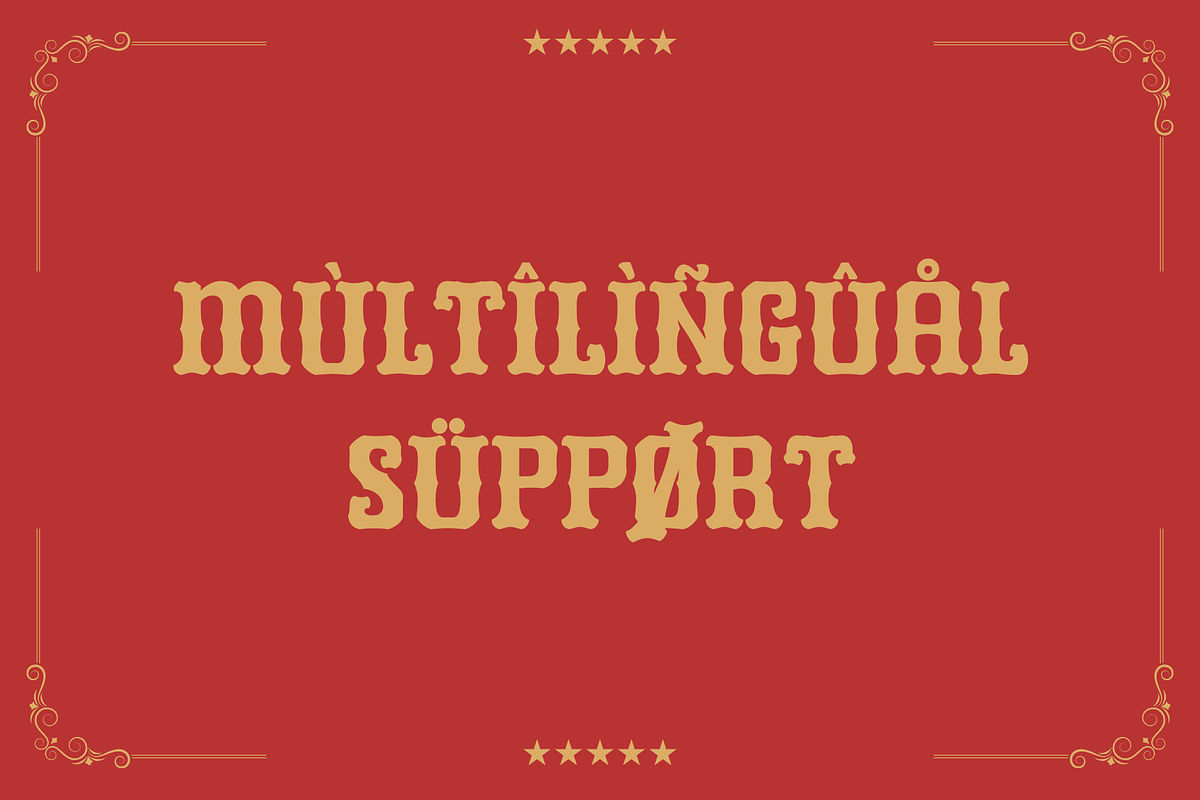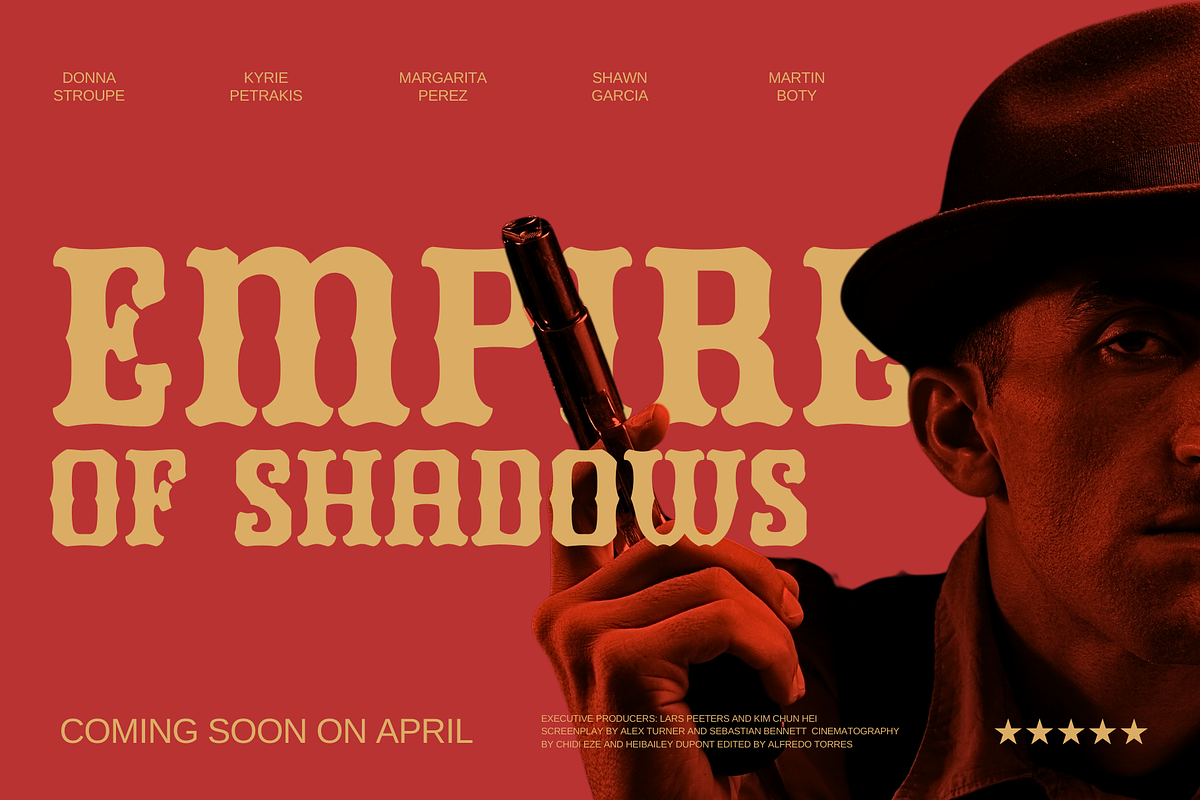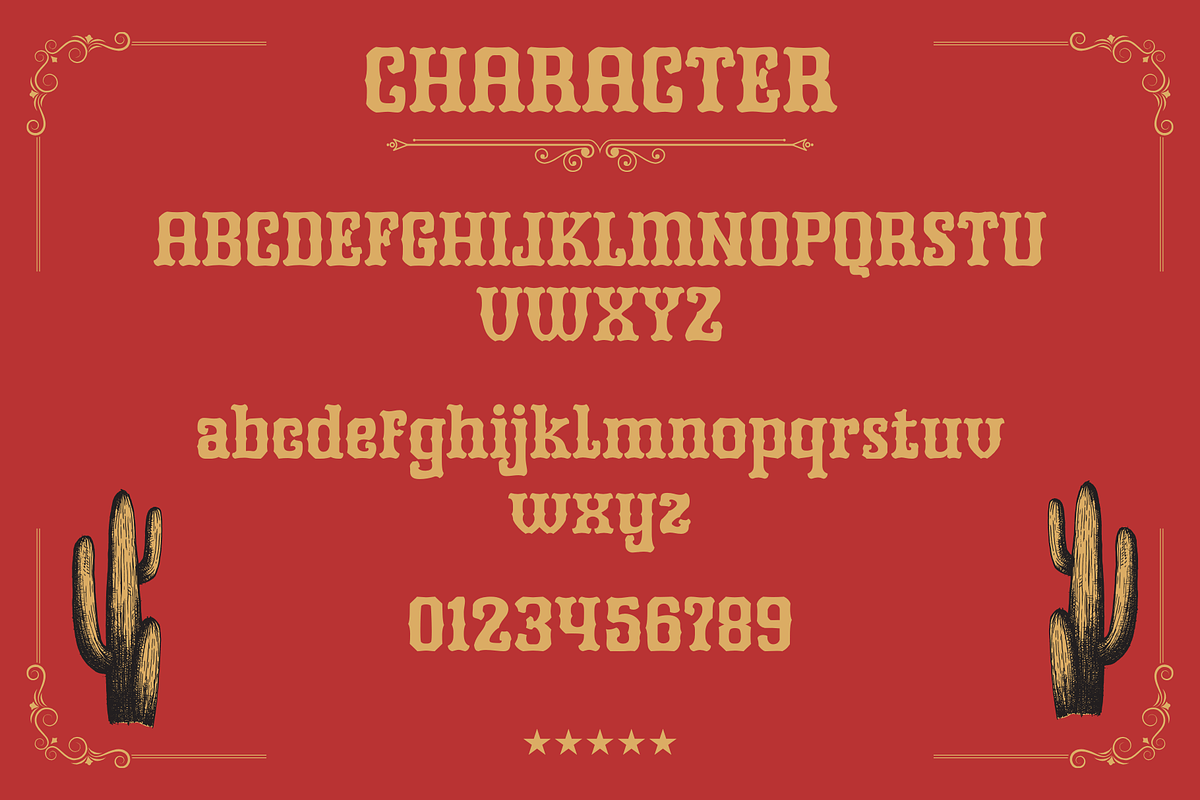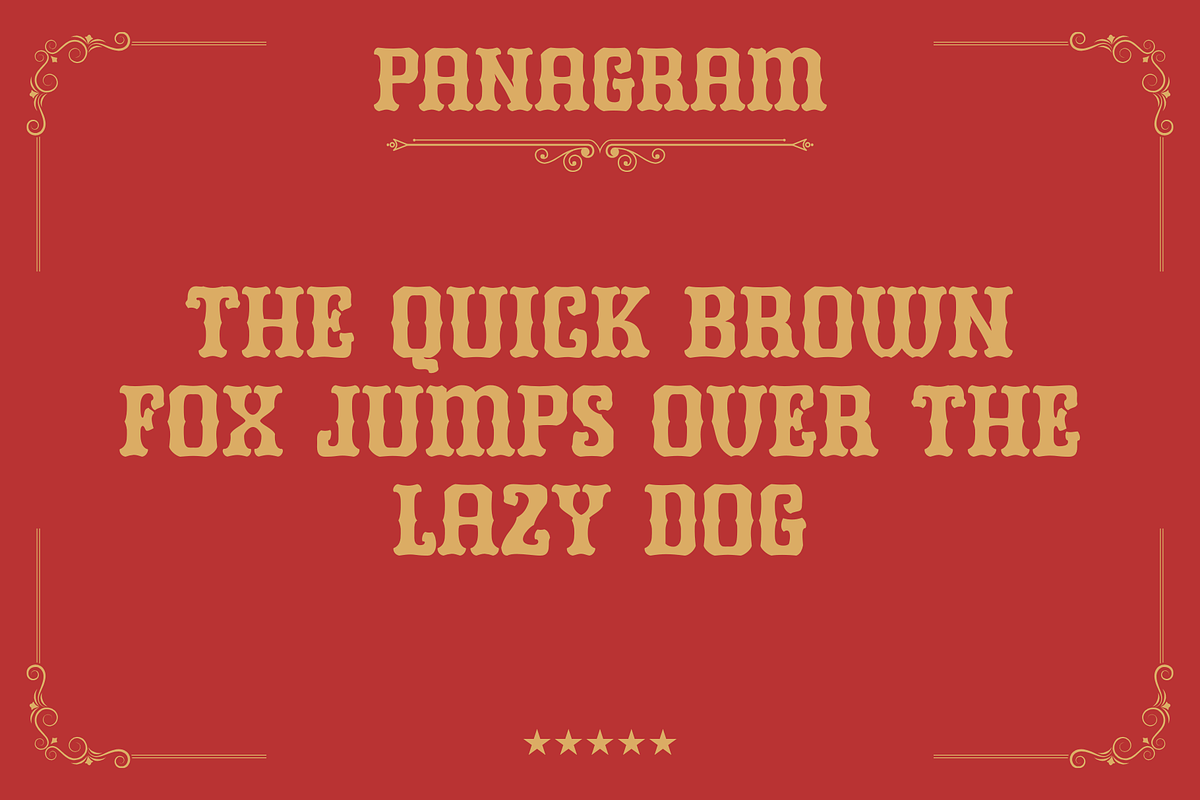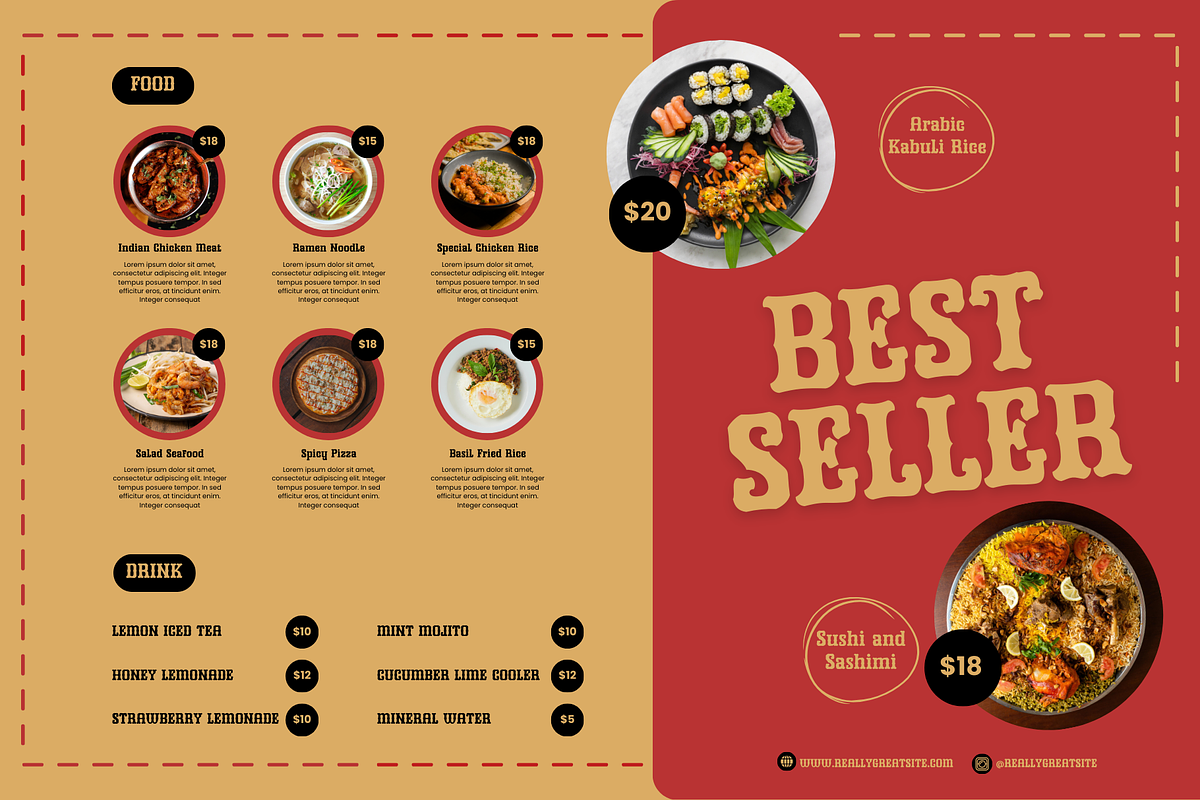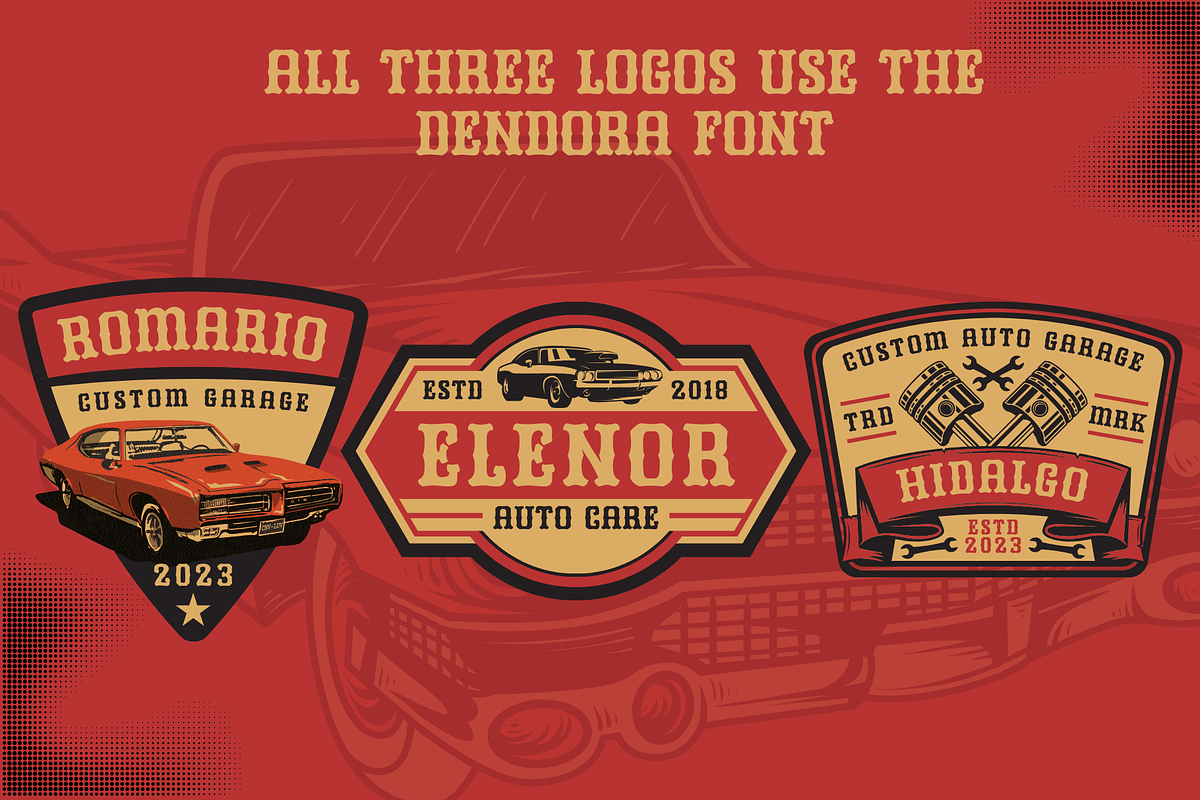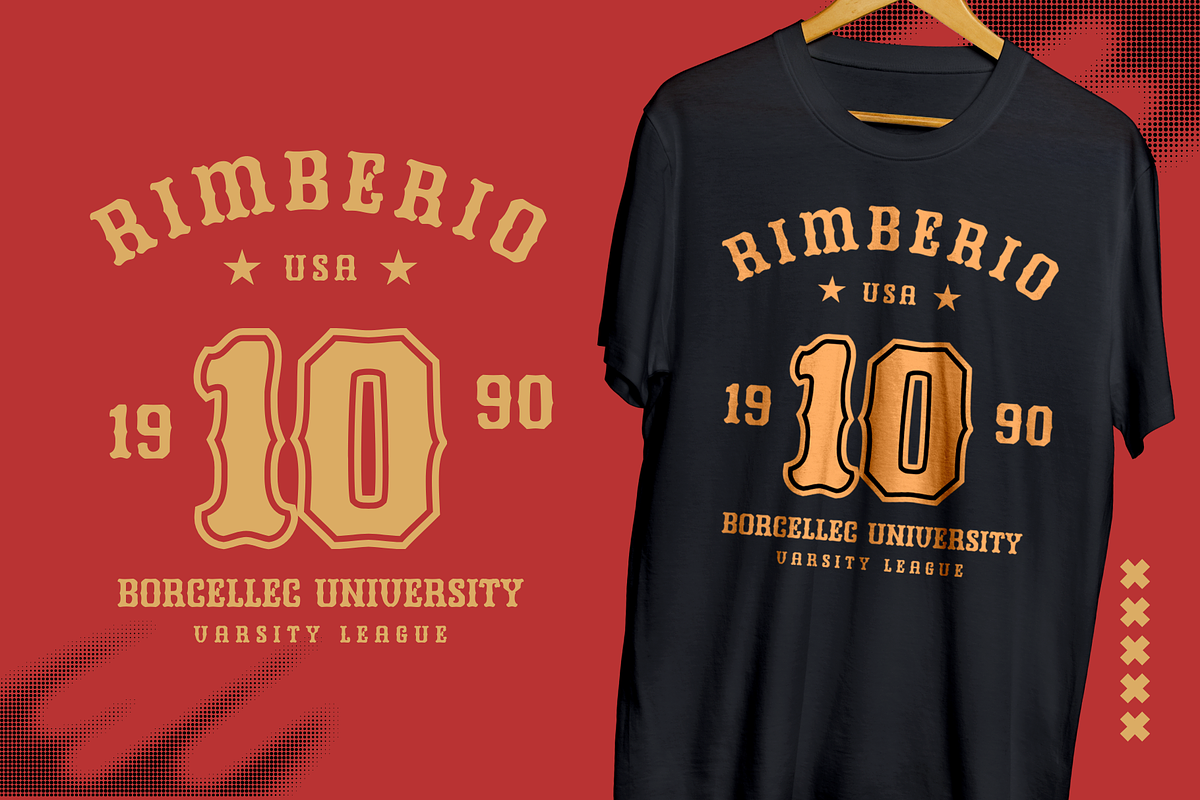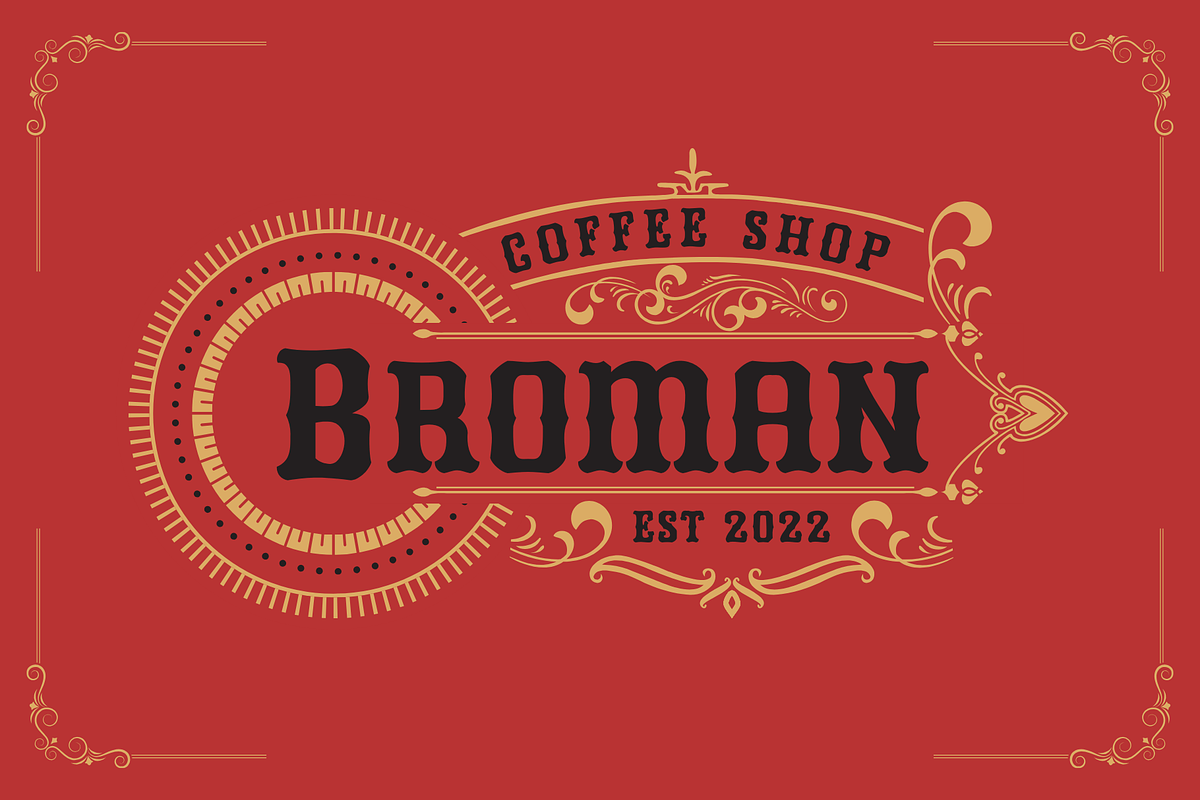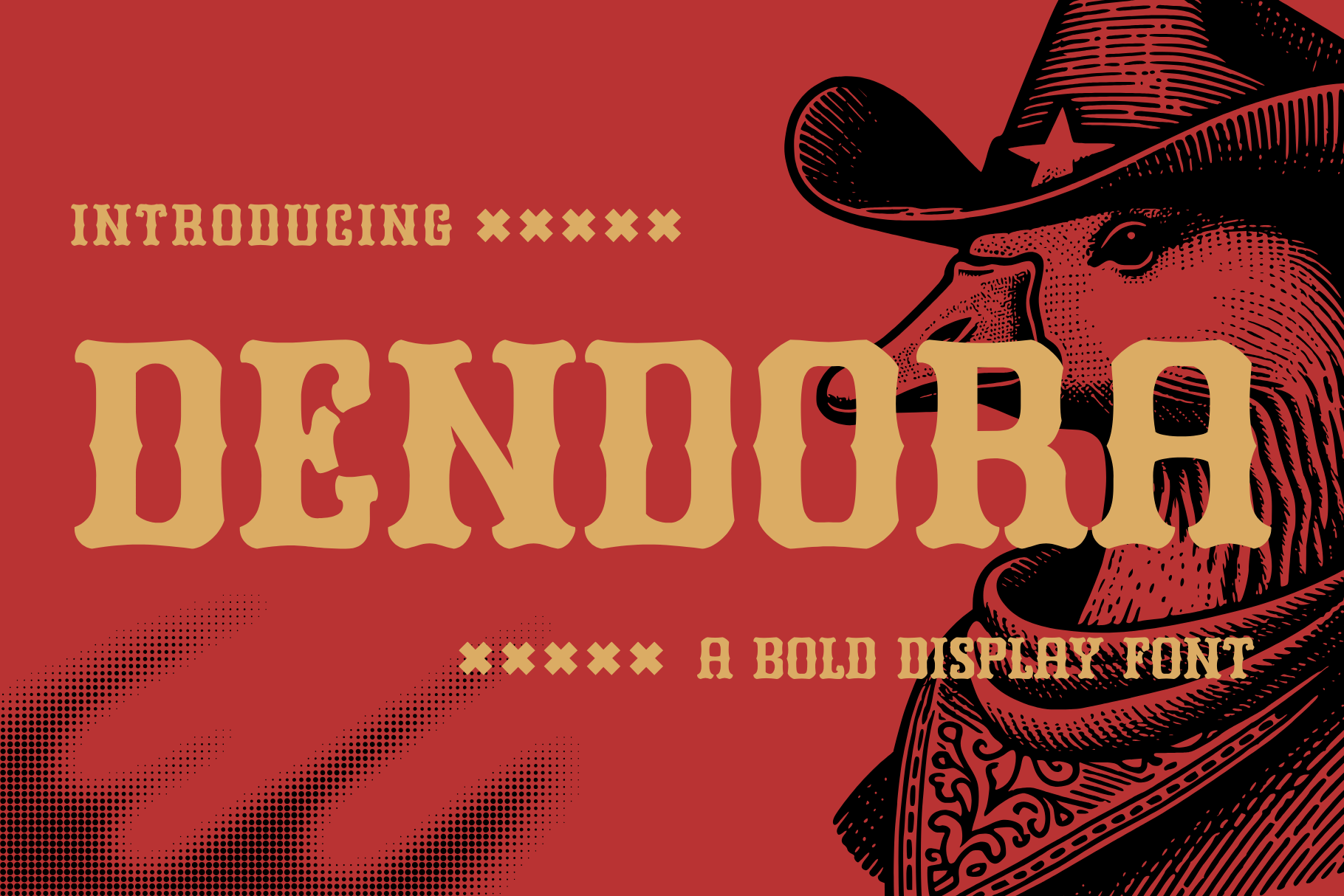
Dendora - bold display font
Dendora is a bold display font inspired by 19th-century styles and the aesthetics of vintage western posters. Each letter and number is crafted with a strong weight and distinctive details, giving it a rugged, bold, and authentic feel.
Complete Uppercase and Lowercase Letters: A full set of uppercase and lowercase letters, each with unique yet harmonious characteristics.
Full Set of Numbers and Symbols: Equipped with a complete set of numbers 0-9 and various punctuation marks, currency symbols, and special characters, making it versatile for various design needs.
Special Characters and Diacritics: The font also includes a wide range of accented characters and unique punctuation, allowing for use in multiple languages.
Dendora is ideal for projects that require a vintage, strong, and characterful feel, such as:
- Logo and branding design
- Movie or event posters
- Product packaging
- Liquor or artisanal product labels
- Magazine or book titles
- T-shirt designs
- Marketing materials with a retro theme
With its striking and timeless appearance, Dendora will make your designs look unique and memorable. This font is the perfect choice for designers who want to add a classic yet modern touch to their work.